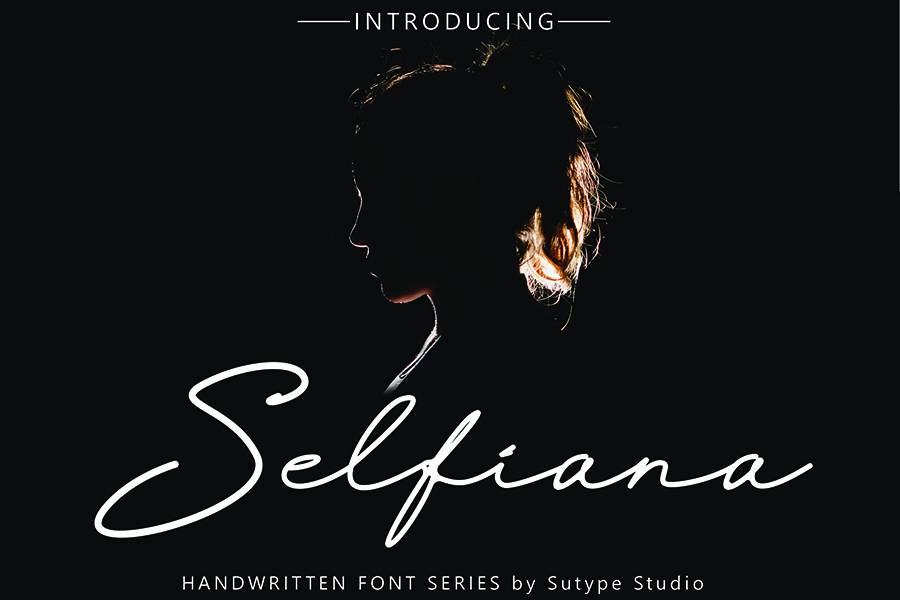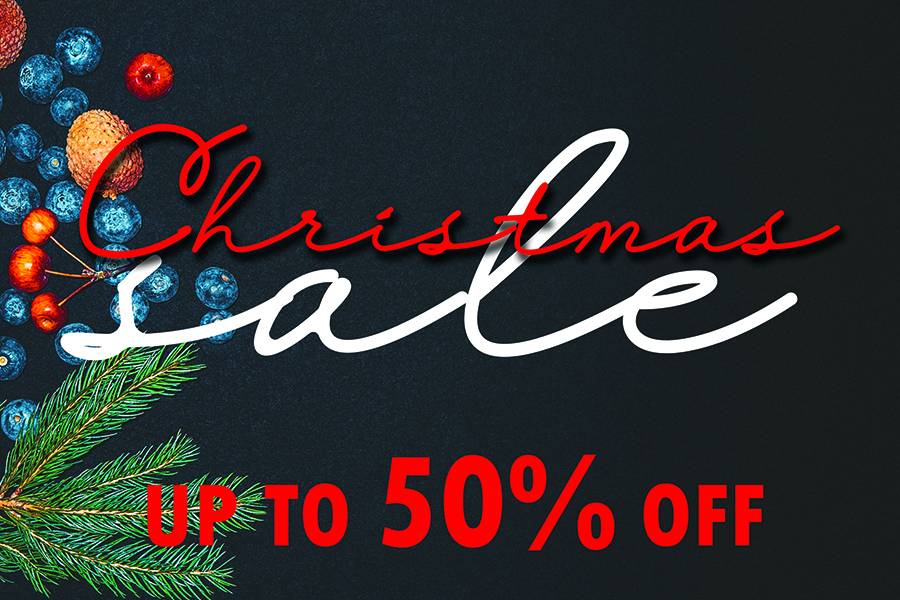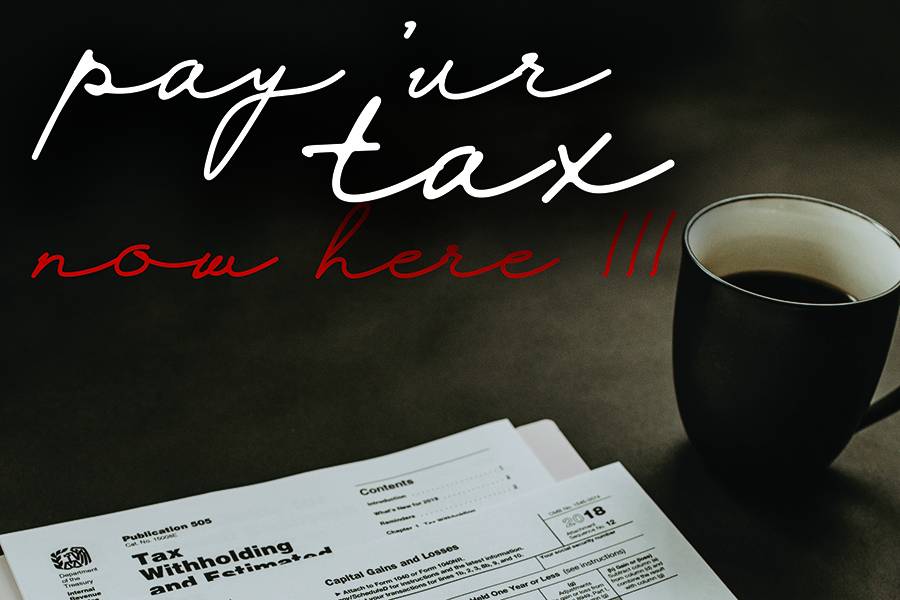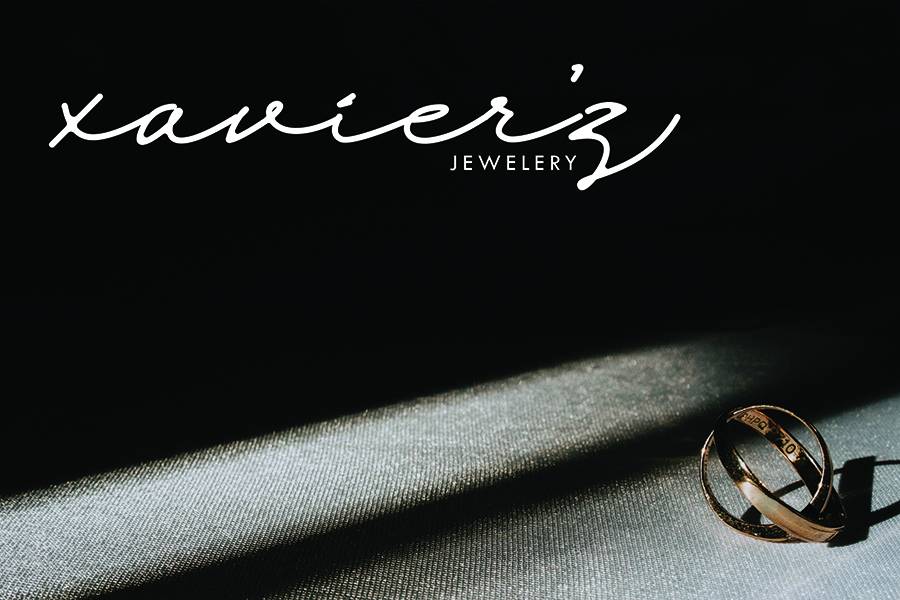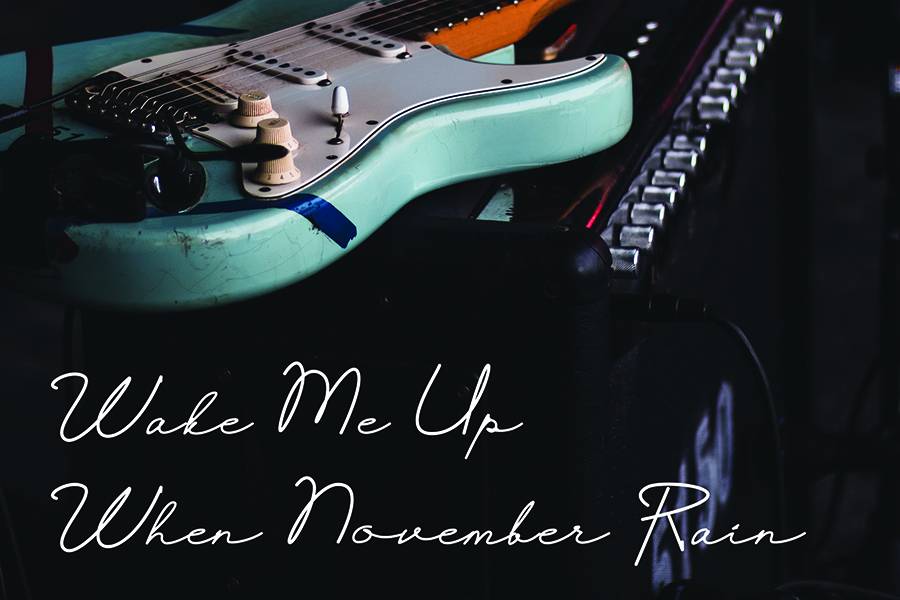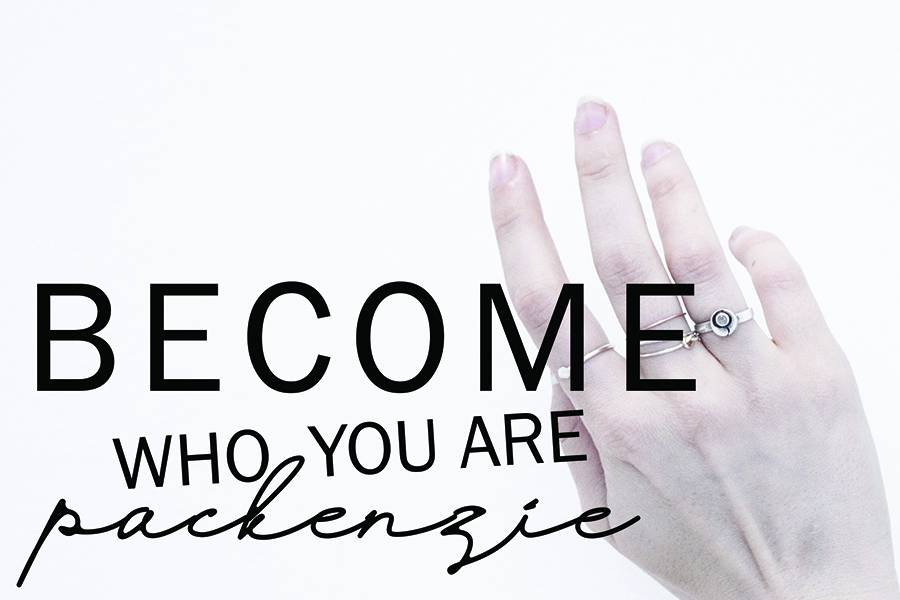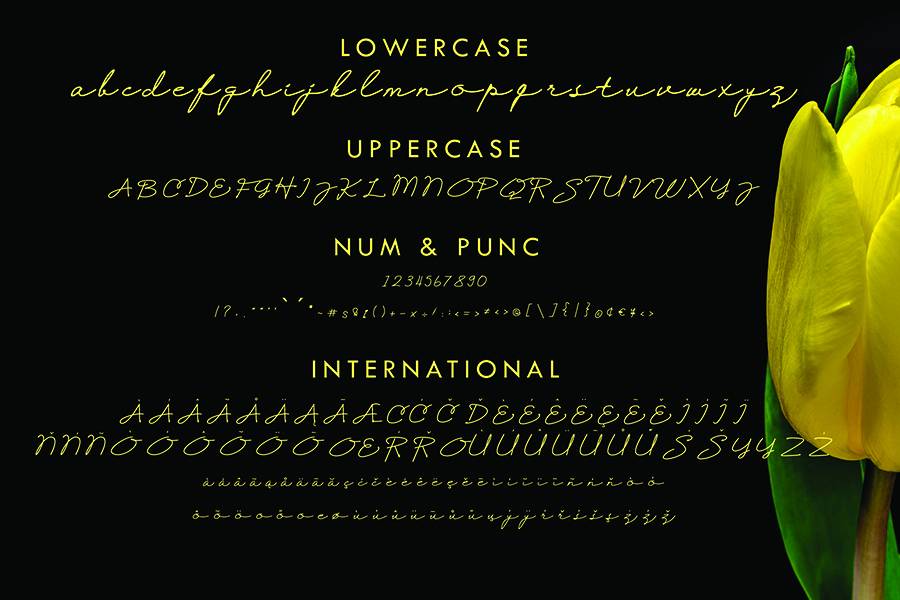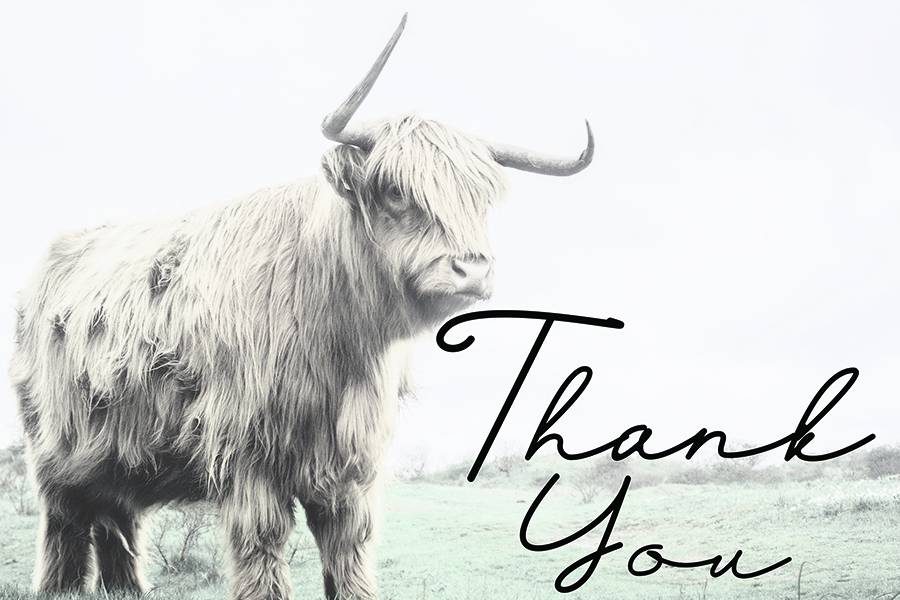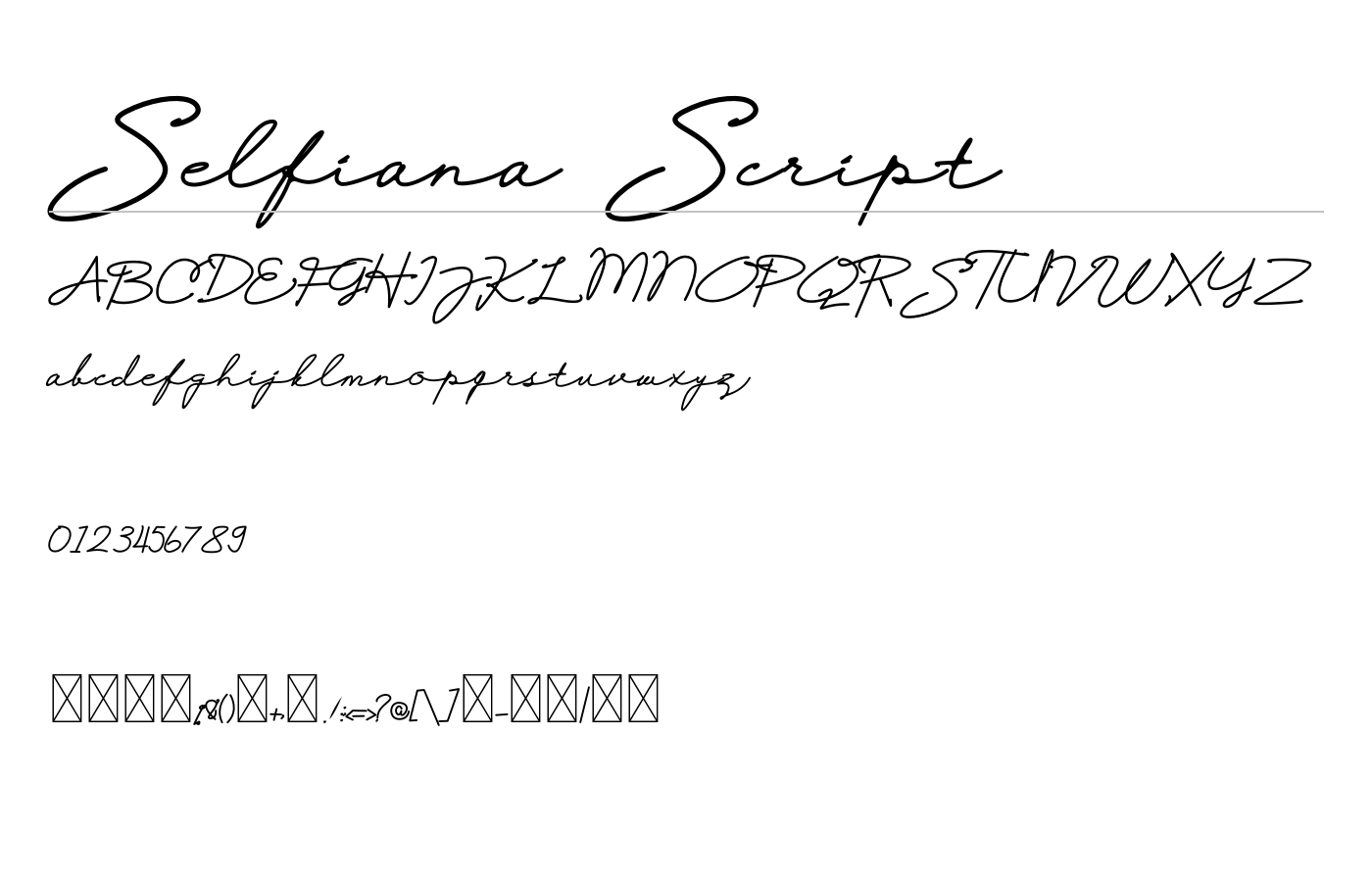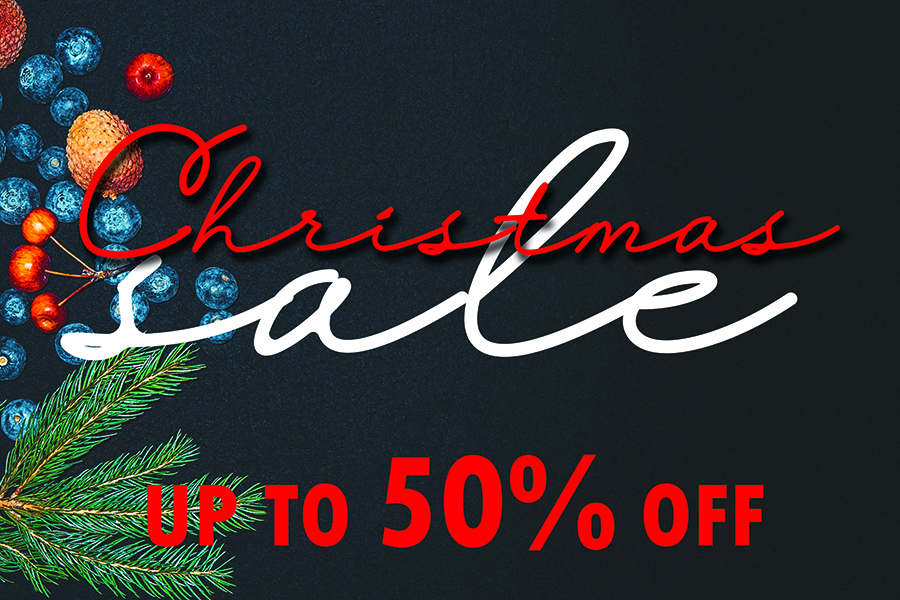
Selfiana Handwritten Font is a delicate, elegant script featuring thin, flowing strokes that mimic natural handwriting with a graceful, slightly casual touch. Its tall x-height and slender letterforms give it a refined and airy feel, perfect for adding a personal, sophisticated flair to invitations, branding, and stylish editorial projects. This font works best in headlines or decorative text where a handwritten charm is desired, lending warmth and elegance without overwhelming the design.
Selfiana Handwritten Font
About Selfiana Handwritten Font
| Designer | Ignatius Sutono |